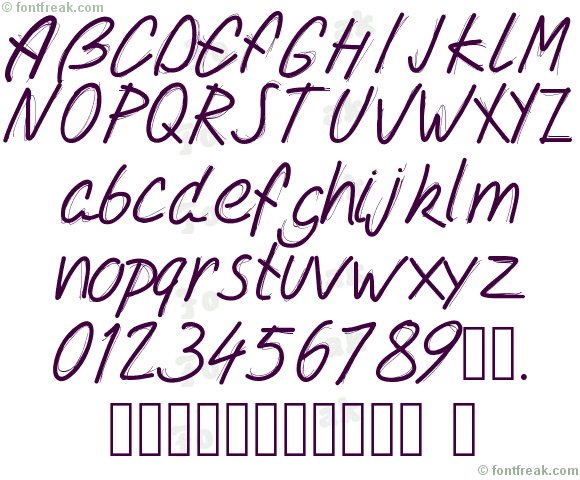
PWDoubleScript
PWDoubleScript by Peax Webdesign is a captivating handwritten font that effortlessly blends elegance with a casual flair. This script font features fluid, sweeping strokes that convey a sense of movement and creativity. The stroke weight varies, giving it a dynamic touch, while the contrast between thick and thin lines adds a sophisticated charm. The spacing is thoughtfully designed to enhance readability, making it suitable for various applications. Decorative elements, such as playful loops and swashes, further enrich the visual appeal of this typeface.
This versatile font is perfect for a range of applications. It shines in wedding invitations, where its romantic style can beautifully convey heartfelt messages. Additionally, PWDoubleScript is an excellent choice for restaurant menus, offering a warm and inviting touch that draws customers in. Graphic designers will find it ideal for creating eye-catching movie posters that need a sense of creativity and spontaneity. Furthermore, content creators can use this font to add a personal touch to blog headers or social media graphics, making their work stand out in a crowded digital landscape.
Targeted towards graphic designers, small business owners, and content creators, PWDoubleScript meets the needs of those looking to infuse their projects with personality. Its free license allows users to incorporate it without financial constraints, making it accessible for various creative endeavors.
What sets the PWDoubleScript font apart is its unique ability to combine artistic expression with practical usability. It captures the essence of handwriting while ensuring clarity and elegance, making it a standout choice in any designer's toolkit. With the PWDoubleScript font free download, you can elevate your design projects and add a distinctive touch that resonates with your audience.